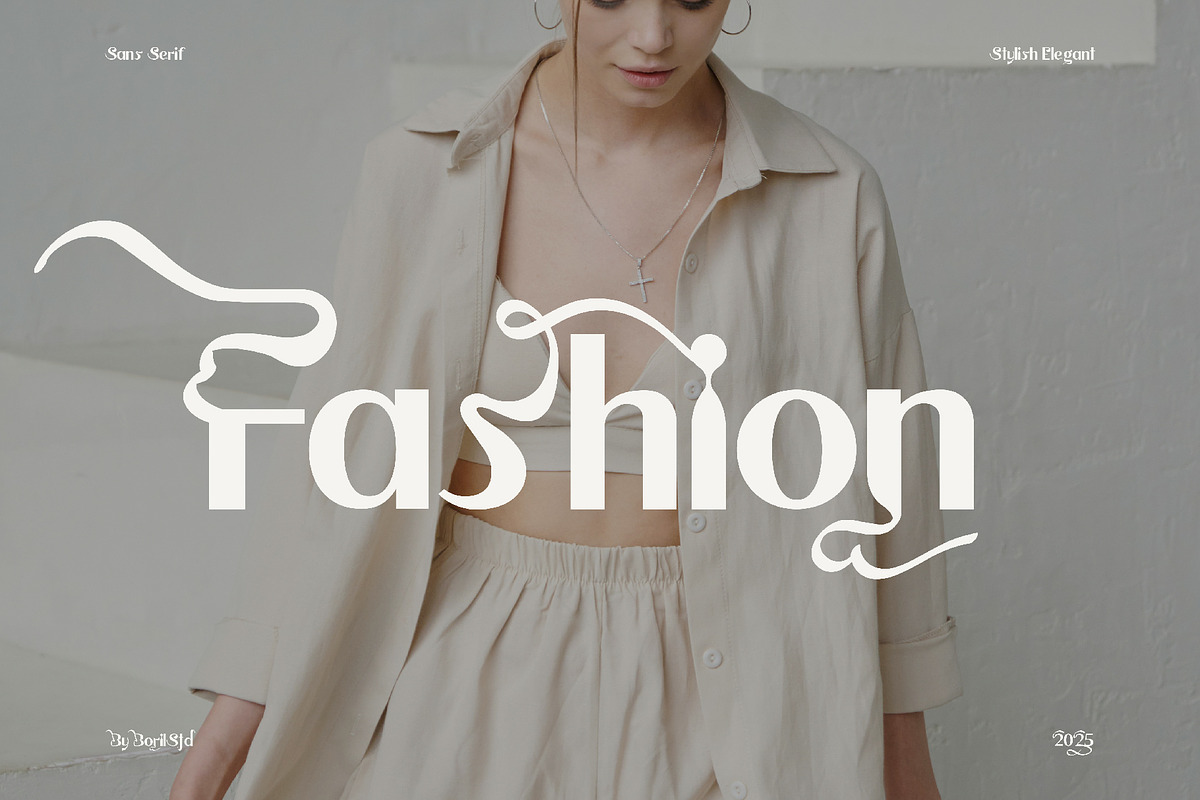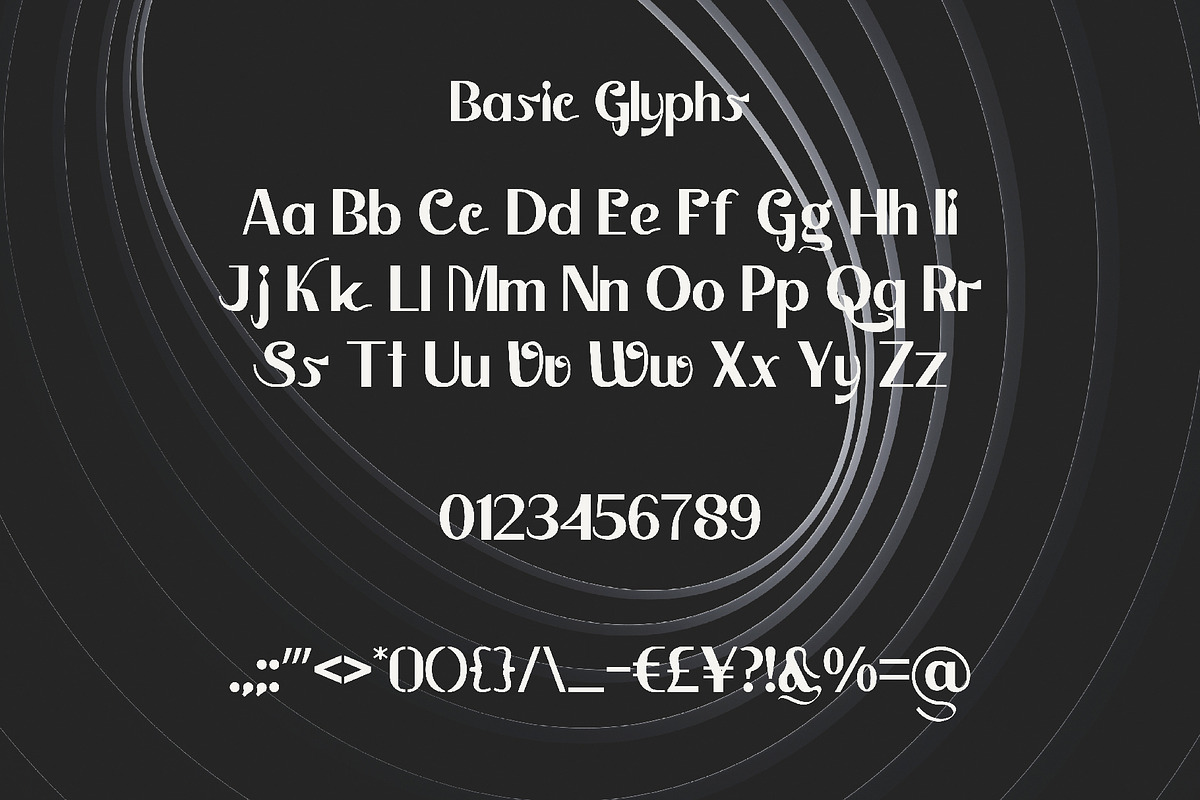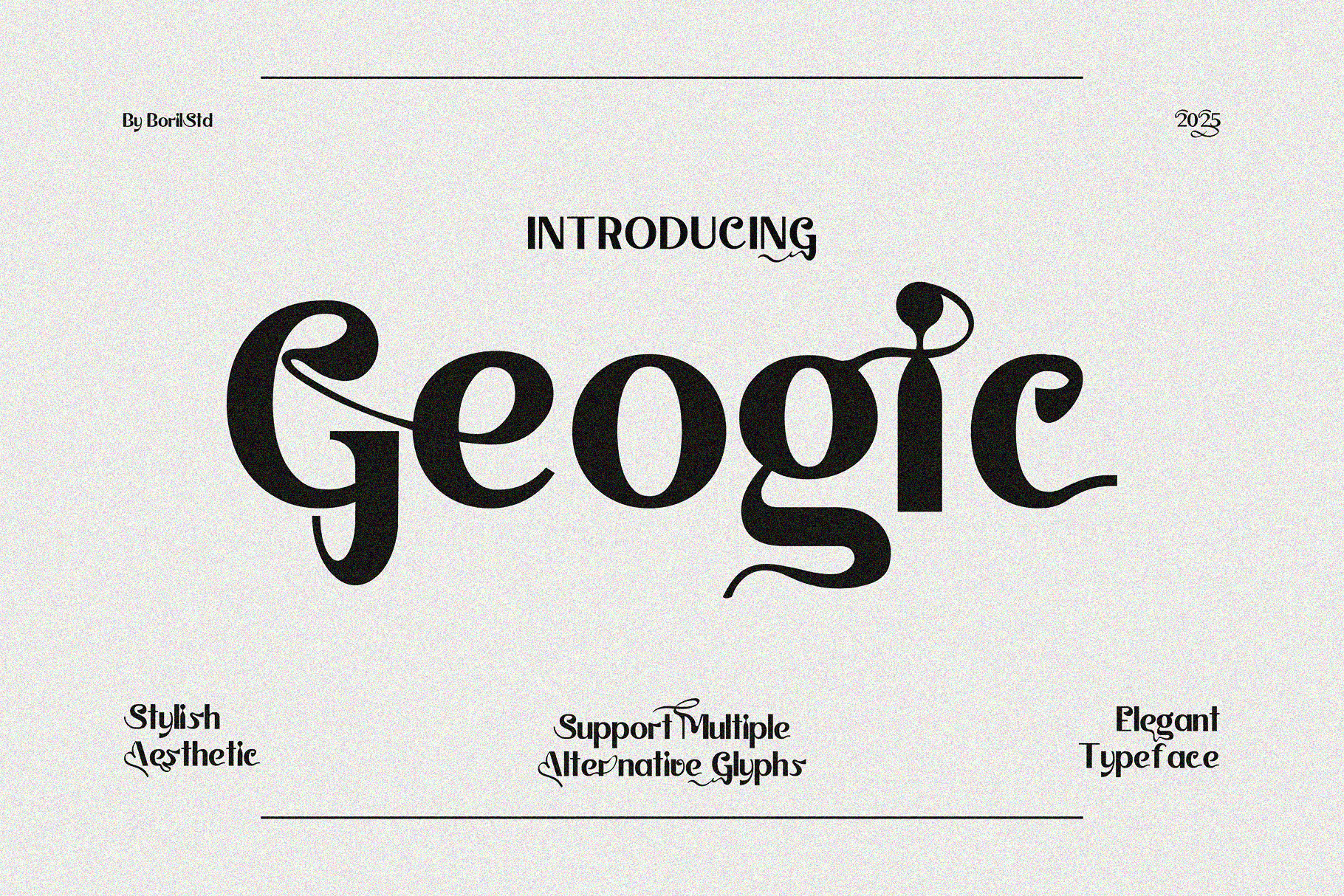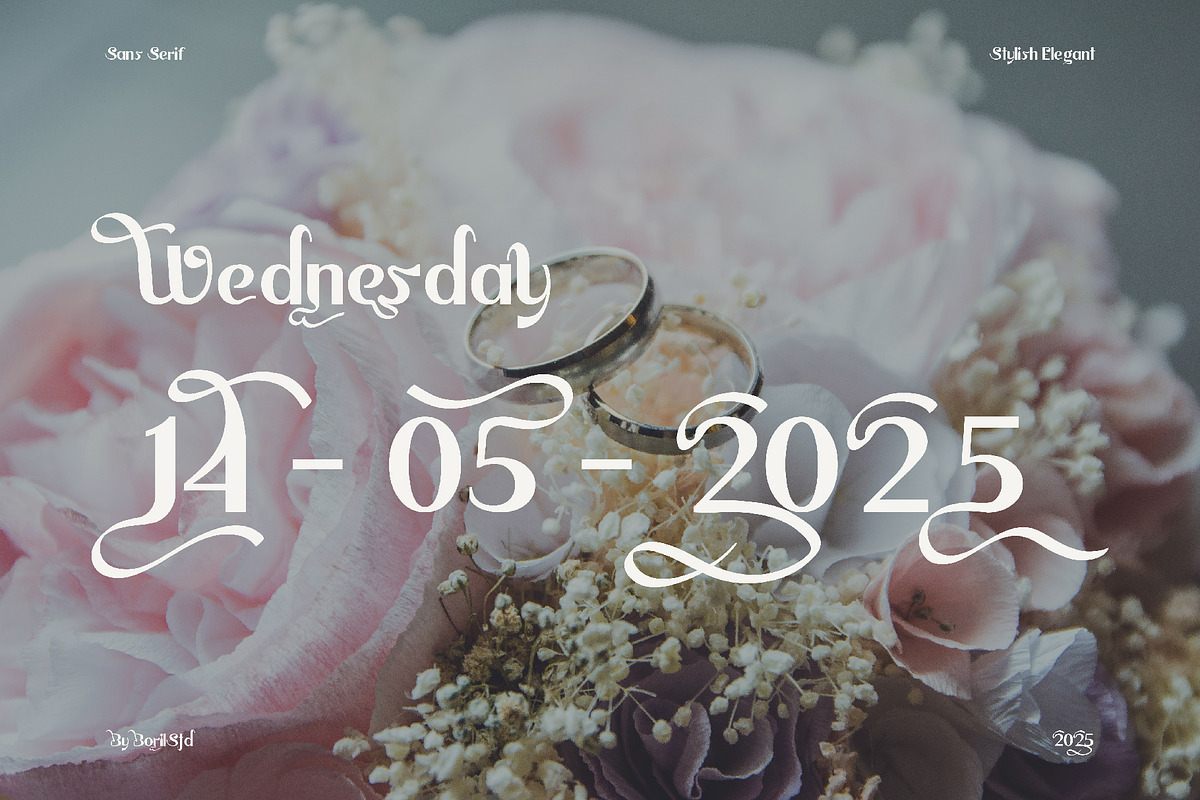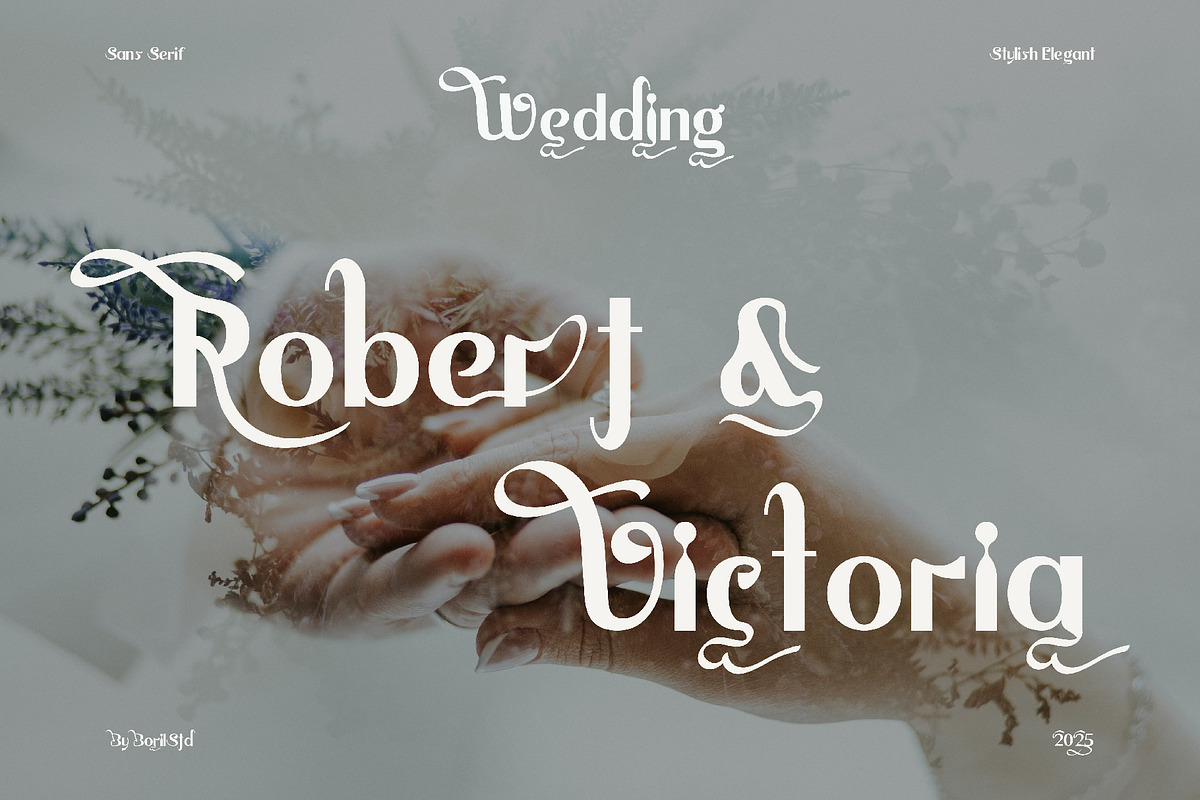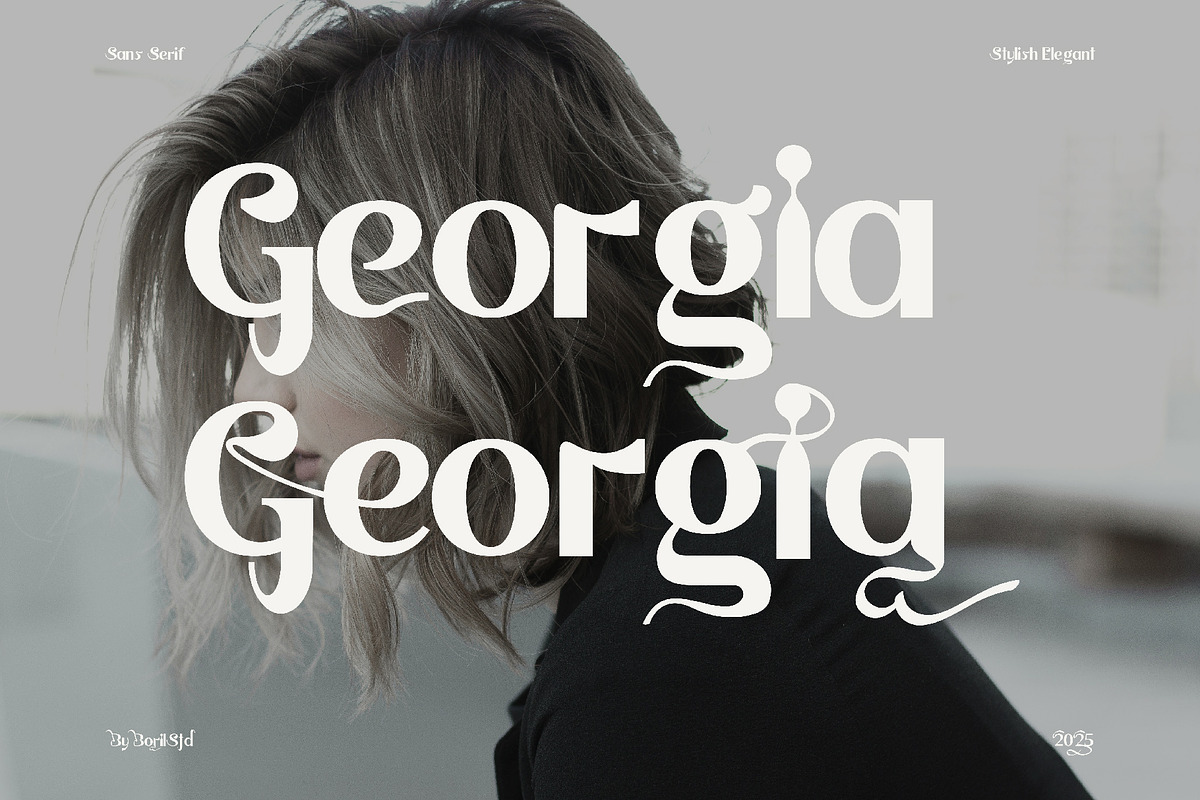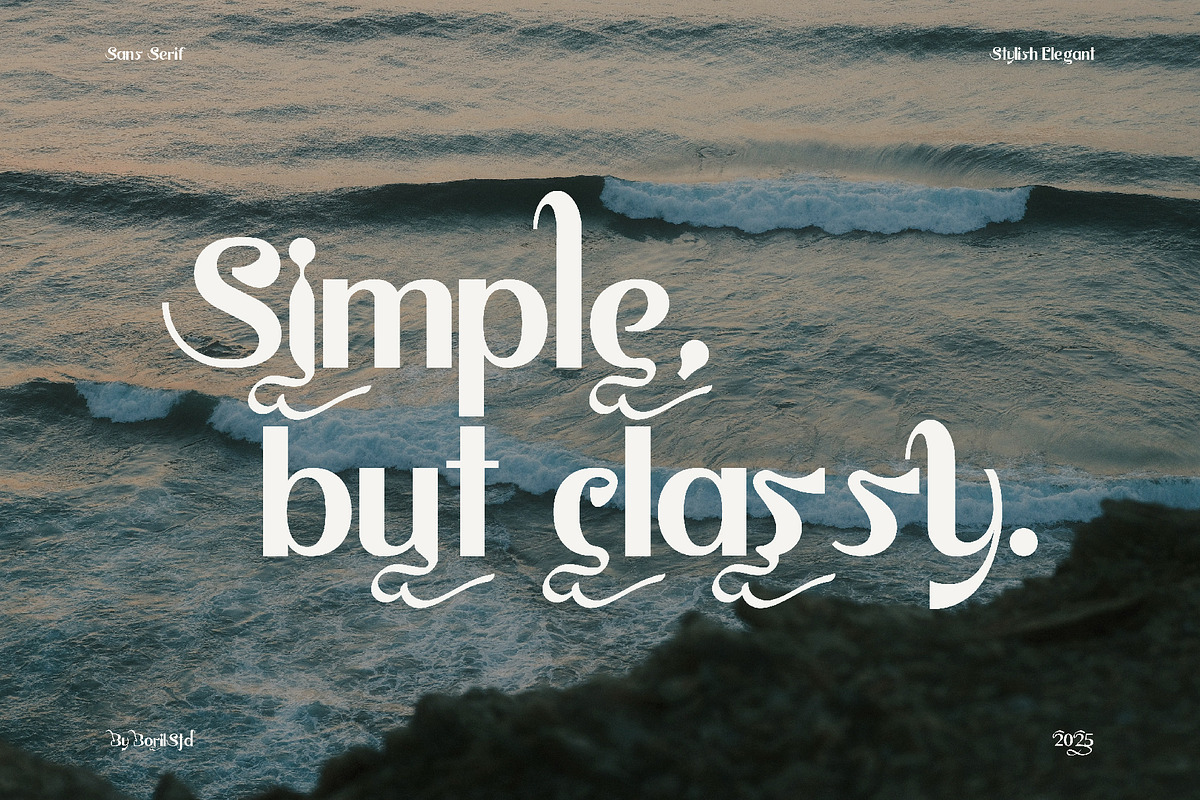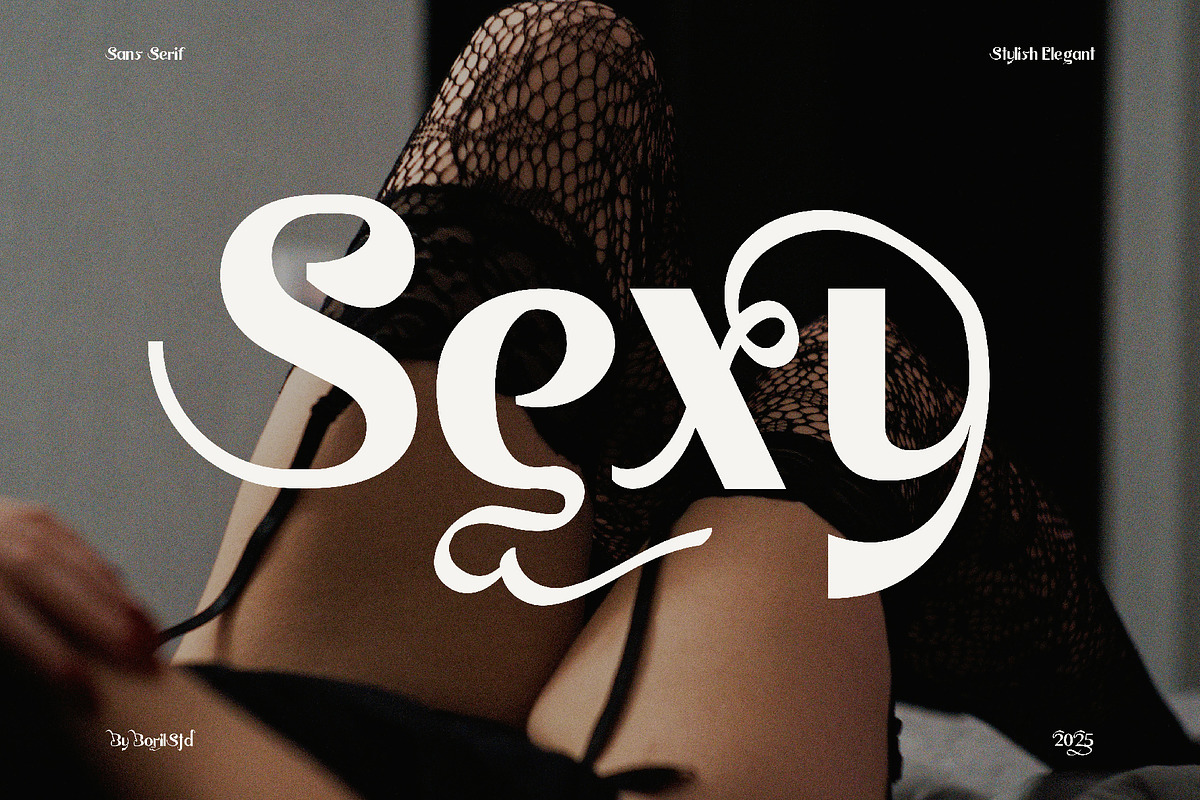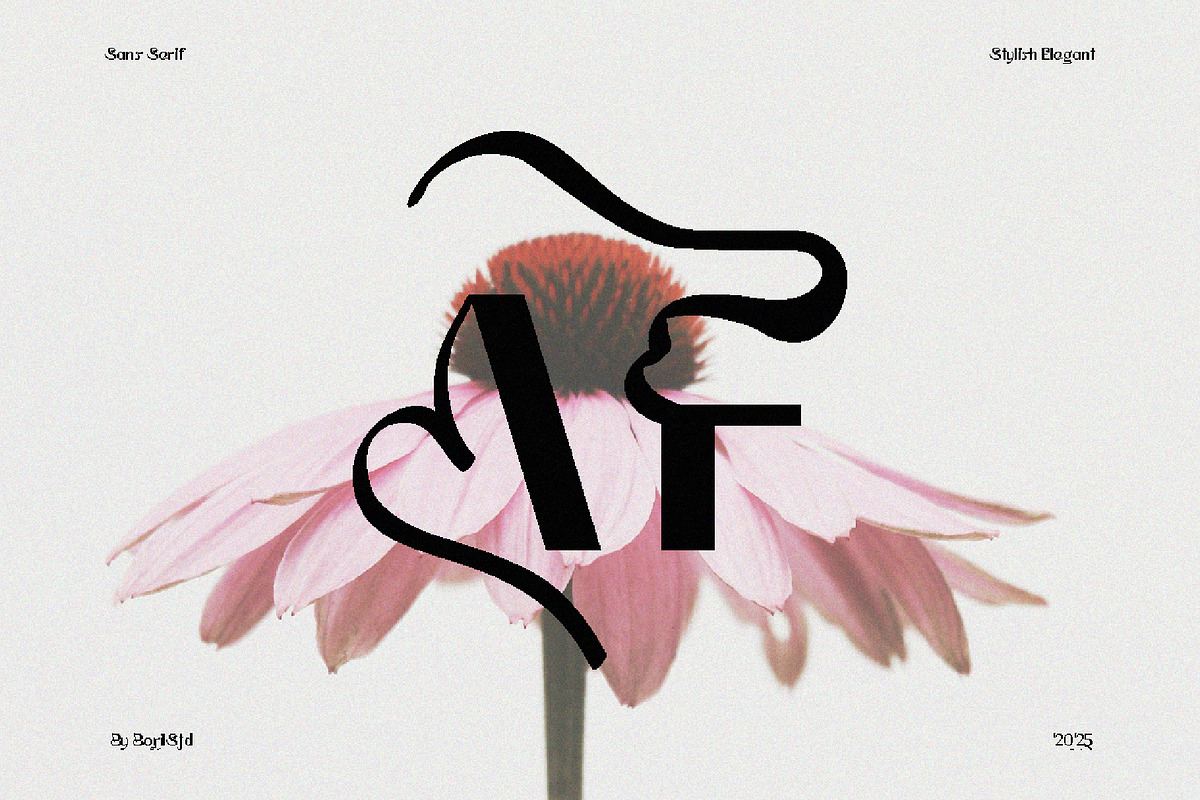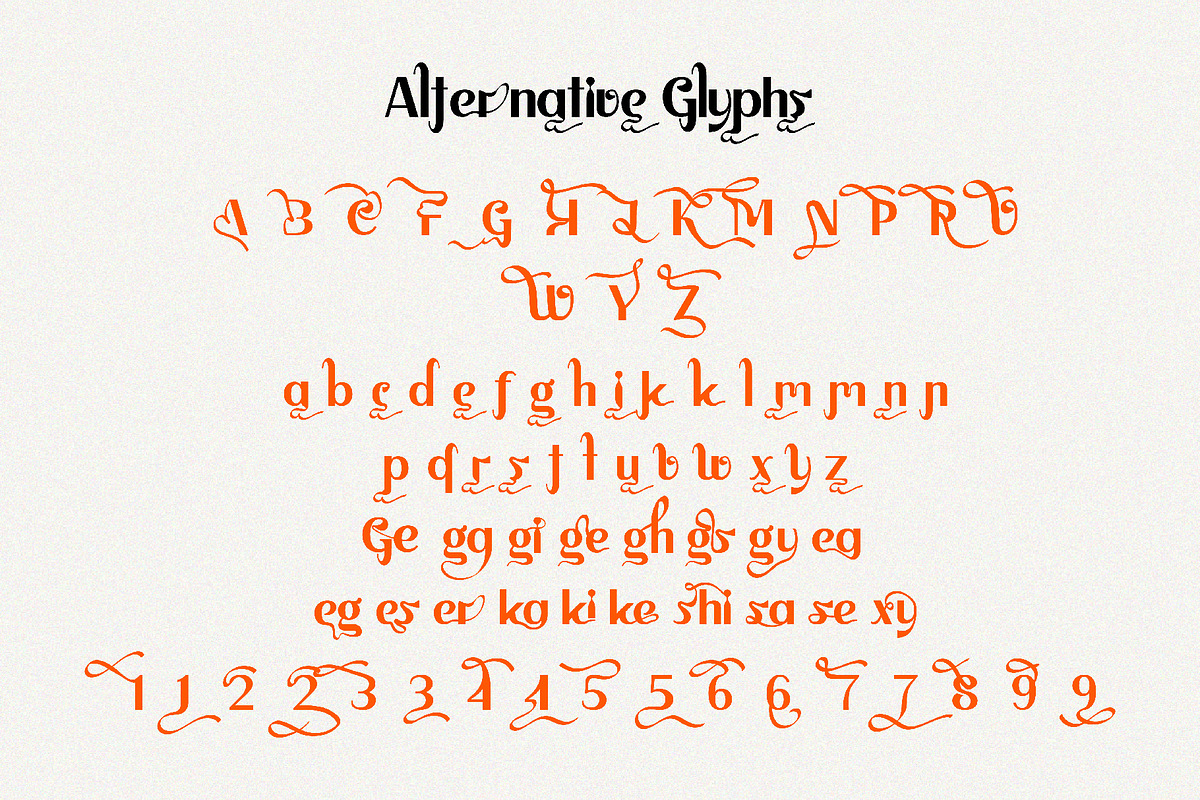
Geogic - Elegant Font
The Geogic font combines modern art deco and vintage ornamental styles. The bold, geometric, and clean letterforms, with minimal decorative elements, are complemented by ligatures and unique, elongated and curved alternative glyphs, creating a dramatic and luxurious impression. This font is suitable for logo designs, vintage posters, weddings, or classic and elegant branding. What do you get?